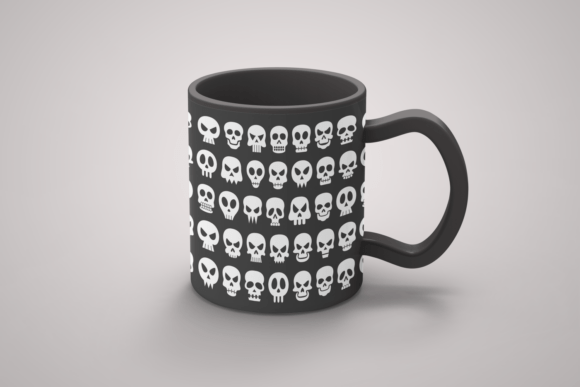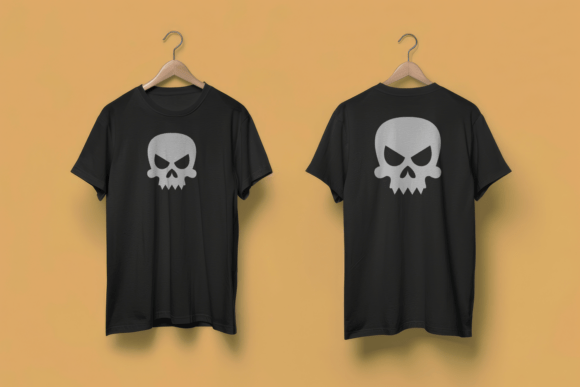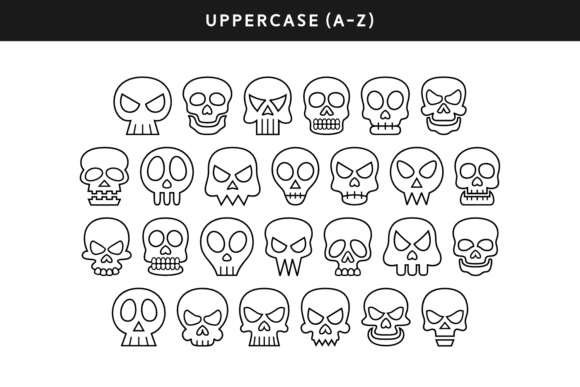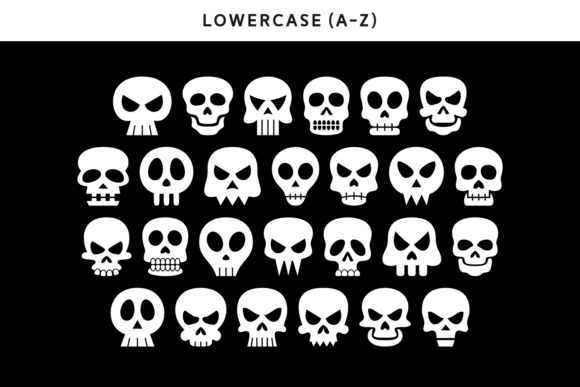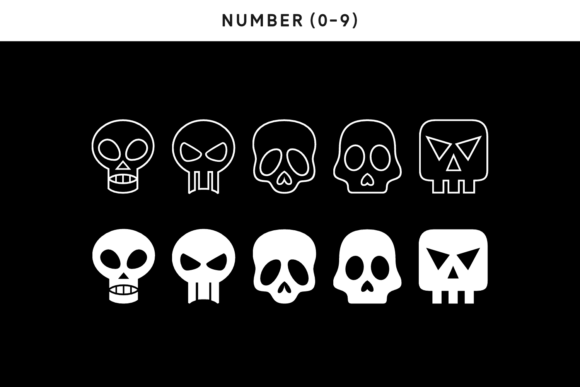
Unleash Your Creativity with the Fake Skull Font: A Comprehensive Guide
Are you a designer, crafty enthusiast, or simply someone who loves the unconventional and unique? Look no further than the Fake Skull Font, a dingbats font that offers a vast array of stylized skull illustrations. This font is not your typical decorative font, but rather a collection of graphic symbols that can instantly elevate your designs. In this article, we’ll dive into the world of Fake Skull Font, exploring its features, benefits, and uses.
What is Fake Skull Font?
Fake Skull Font is a dingbats font that transforms the entire alphabet and number set into a wide variety of stylized skull illustrations. With a vast range of skull expressions and shapes, this font provides an extensive library of skull iconography. From cute and cartoony to menacing or abstract geometrical forms, the Fake Skull Font has something for everyone.
Key Features of Fake Skull Font
- Diverse Skull Illustrations: With a vast array of skull expressions and shapes, you’ll never run out of creative options.
- Immediate Utility: This font functions purely as a set of graphic symbols, allowing you to effortlessly generate varied skull designs.
- High-Volume Iconographic Resource: The Fake Skull Font provides an extensive library of skull iconography, perfect for designers and crafters.
- Versatility: Suitable for various design projects, from merchandise design to branding for alternative culture events.
Who Can Benefit from Fake Skull Font?
The Fake Skull Font is an invaluable asset for designers and crafters in niche markets. Professionals in the following fields will benefit significantly:
- Merchandise Design: Create unique and eye-catching designs for T-shirts, mugs, and accessories.
- Alternative Culture Events: Design branding for events, festivals, and gatherings that celebrate alternative culture.
- Tattoo Shops: Provide tattoo artists and designers with a vast array of skull designs for inspiration.
- Halloween-Themed Projects: Create spooky and fun designs for Halloween-themed projects, such as party decorations, invitations, and more.
How to Use Fake Skull Font
- Experiment with Different Skull Designs: Don’t be afraid to try out different skull designs and combinations to create unique and eye-catching designs.
- Mix and Match with Other Fonts: Combine the Fake Skull Font with other fonts to create interesting and contrasting designs.
- Use in Conjunction with Other Design Elements: Incorporate the Fake Skull Font into your designs alongside other design elements, such as patterns, textures, and images.
The Fake Skull Font is a game-changer for designers and crafters looking to add a touch of uniqueness and personality to their designs. With its vast array of stylized skull illustrations, immediate utility, and versatility, this font is sure to become a staple in your design toolkit. Whether you’re a seasoned designer or just starting out, the Fake Skull Font is an excellent resource to have in your arsenal.